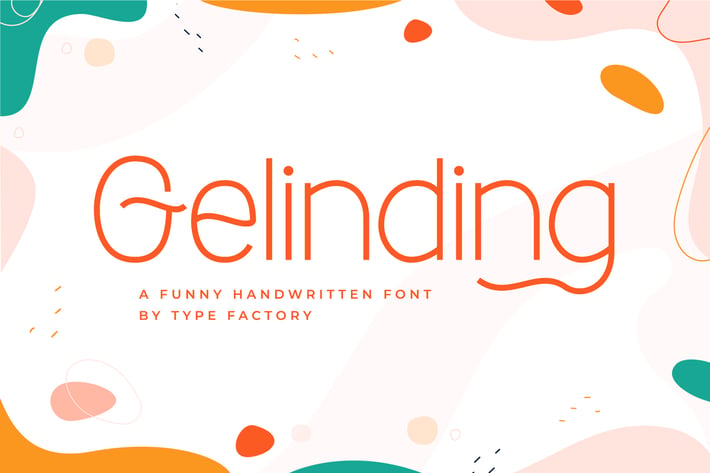
Gelinding - A Funny Handwritten Font
Introducing "Gelinding" - a funny handwritten font that adds a playful and whimsical touch to your designs, infusing them with humor and personality.
With its quirky letterforms and spontaneous strokes, "Gelinding" captures the charm of casual handwriting with a humorous twist. Whether you're creating greeting cards, children's books, posters, or social media graphics, this font brings a sense of fun and lightheartedness to your projects.
Embrace the playful vibes of "Gelinding" as it effortlessly enhances your designs. With its humorous personality and hand-drawn style, this font sparks joy and laughter wherever it's used, ensuring that your creations stand out with whimsical flair.
Step into the world of laughter with "Gelinding" and let your designs shine with its funny and handwritten charm.
– Lowercase
– Ligature
– Alternate